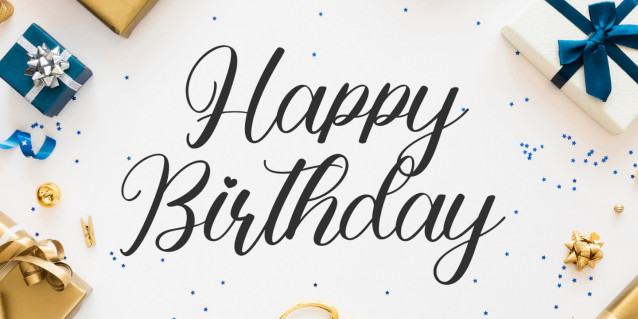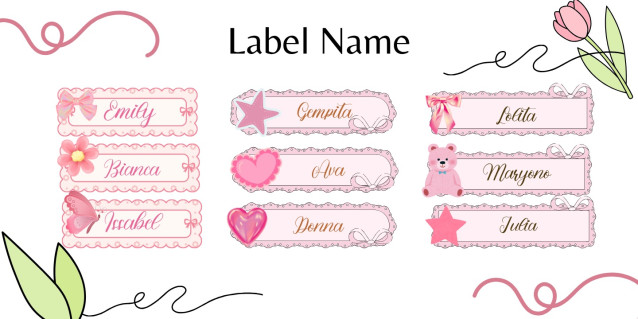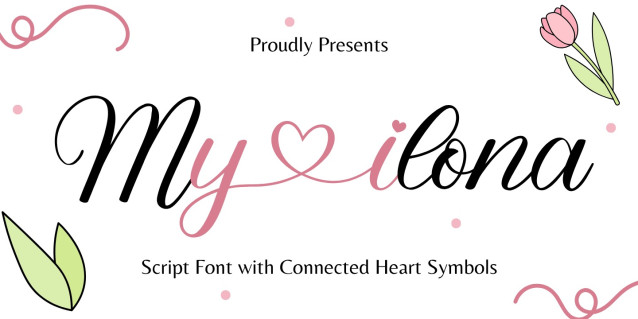
My Ilona Font
My Ilona Font is a romantic and luxurious calligraphy font, crafted to bring an authentic and lively touch of handwriting to your digital projects. With its dynamic baseline and gentle strokes, My Ilona is perfect for anyone looking to add an element of luxury and intimacy to their designs.